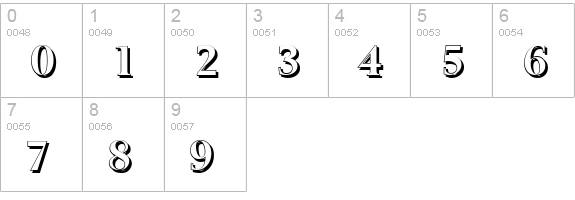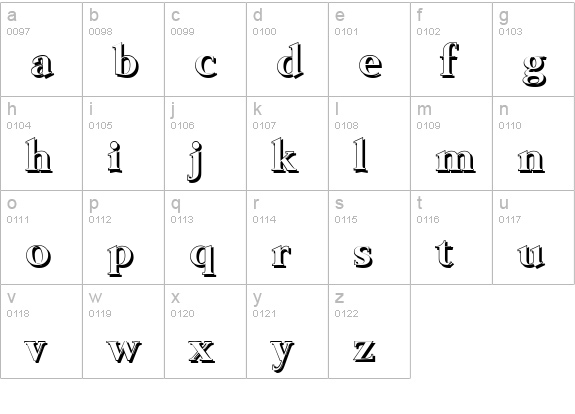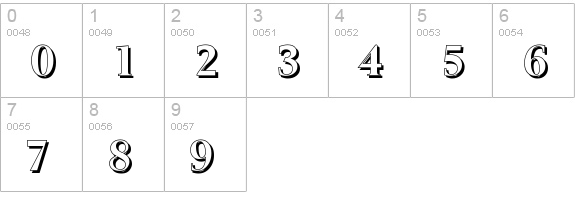
BelfastShadow-Bold is a strong, high-contrast variant in the BelfastShadow typeface family \xE2\x80\x94 well suited to headlines, attention-grabbing titles, and strong calls-to-action.
BelfastShadow-Bold font is a bold and striking typeface that exudes strength and confidence. With its sharp edges and sleek design, this font is perfect for making a bold statement in your designs. The prominent shadows give depth and dimension to each character, adding a touch of drama to your projects. This versatile font is ideal for creating eye-catching headlines, posters, and branding materials. Whether you're designing a logo for a modern brand or crafting a sleek website layout, BelfastShadow-Bold will make your text stand out. Best of all, BelfastShadow-Bold is available for free download at FontsMarket.com. So go ahead and elevate your designs with this powerful and dynamic font today!